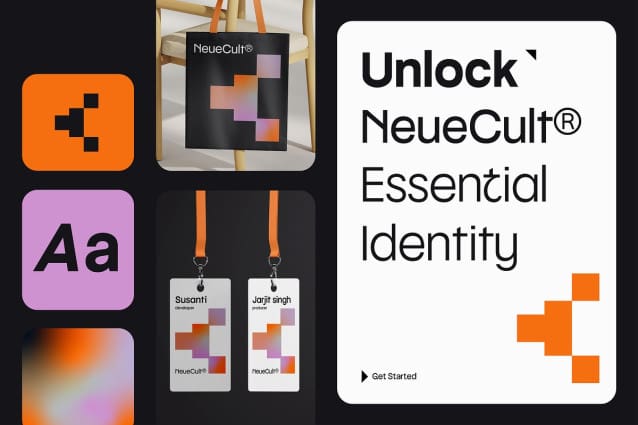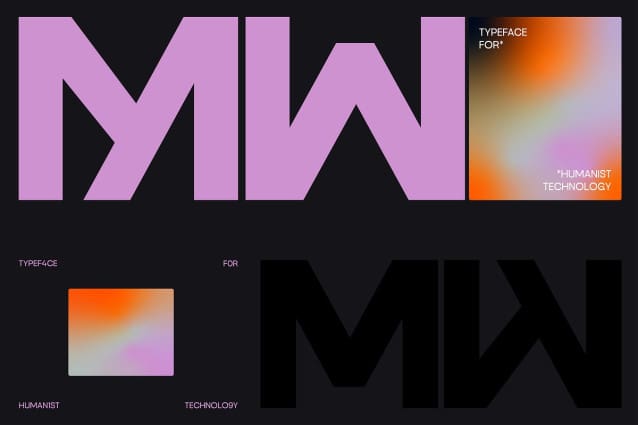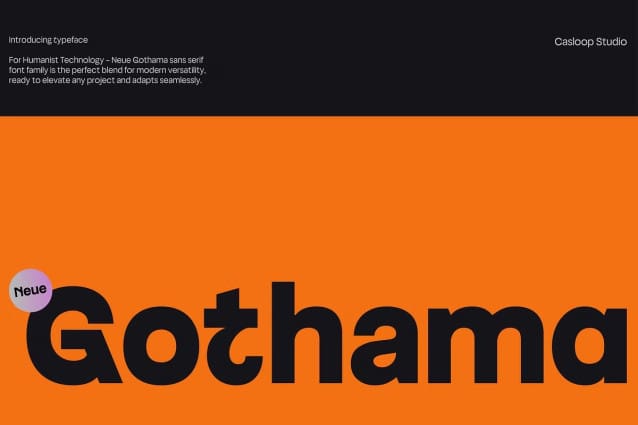
Neue Gothama Font Family
Neue Gothama Font Family is a geometric sans-serif typeface that harmoniously blends humanist and neo-grotesque elements, making it the perfect choice for any professional design need. Its contemporary and sleek design, coupled with distinctive uppercase characters and a large x-height, ensures that your text stands out with clarity and impact. This premium font family boasts a wide range of weights, from thin to bold, in both upright and oblique styles. Its minimalist and expressive forms are designed to be highly legible, even at small sizes, making it an ideal choice for corporate branding, packaging, websites, and digital media visuals.